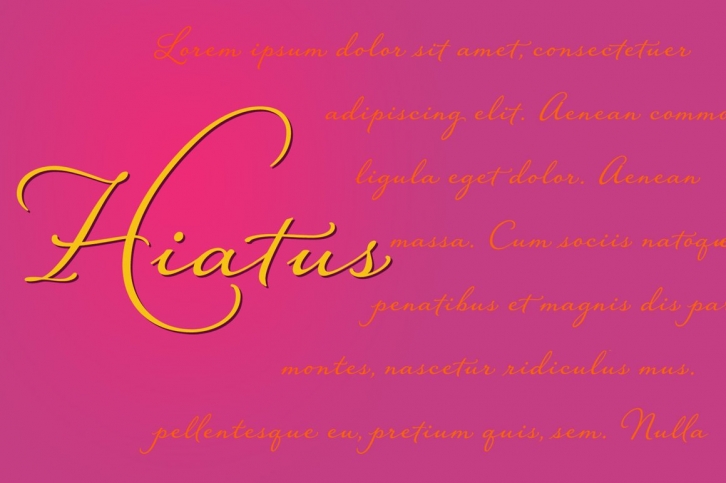
Hiatus bridges the gap between formal scripts used for invitations and more classic settings and casual scripts that exude a warmer tone. Like many formal scripts, Hiatus is fully connecting. Its low body height combined with generous letterspacing adds an elegant profile to lines of text. Like casual scripts, Hiatus has a warm, hand-lettered appearance with great rhythm. Solid in structure; Hiatus also sets well at smaller sizes. Type enthusiasts will enjoy the variety of options. For optimal text flow, both letters and ligatures have alternate versions programmed to come in at the appropriate place for both beginnings and endings as well as in various contextual settings. In addition, there are variations and flourished versions of almost every letter and ligature. Some ligatures have as many as 12 variations. Also included are fractions, a set of old-style numbers, and a set of ornamental flourishes. Hiatus is a unique contemporary script with the strength of a time-tested classic.